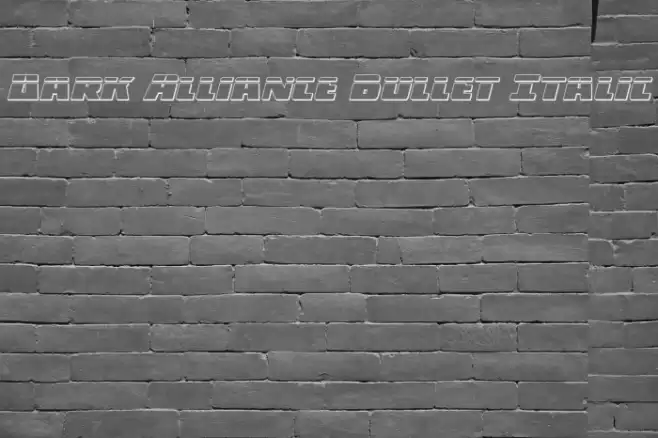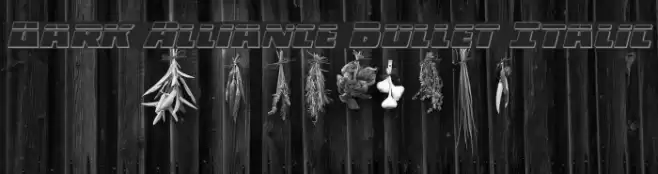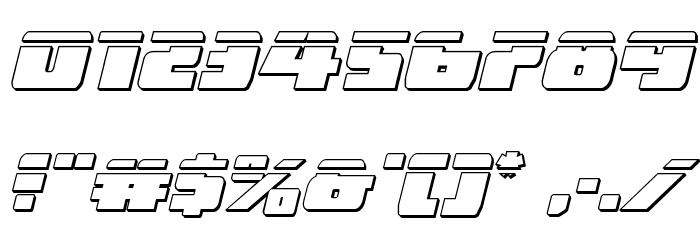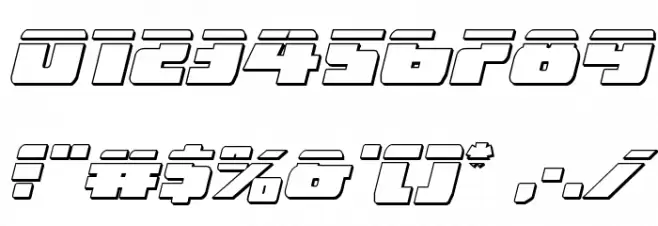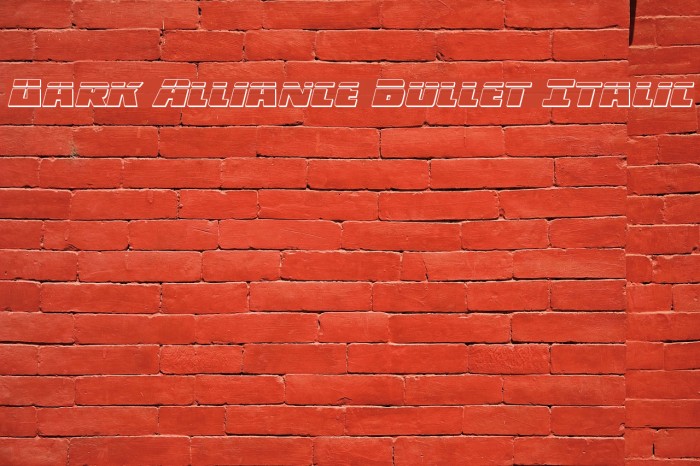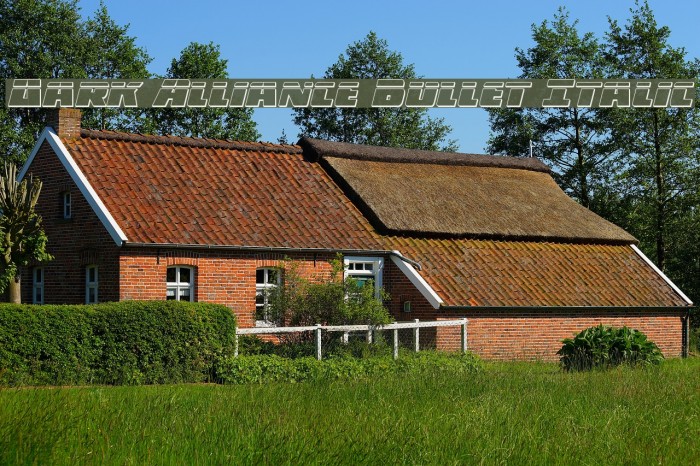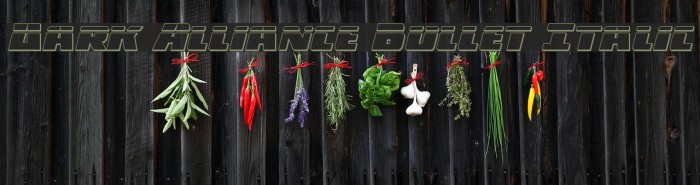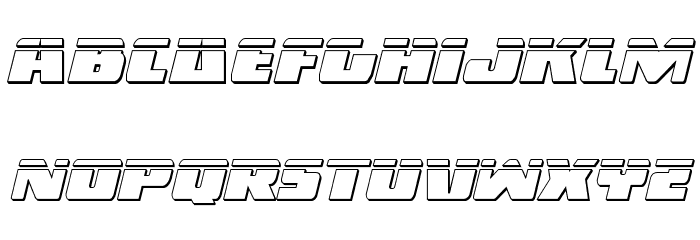
Dark Alliance Bullet Italic Font
Dark Alliance Bullet Italic Description
This font features a bold, angular design with a futuristic and dynamic appearance. The characters are outlined, giving them a hollow look that adds to their modern aesthetic. Each letter is constructed with sharp edges and a slight italic slant, enhancing the sense of movement and speed. The uppercase and lowercase letters maintain a consistent style, with the lowercase being slightly smaller but equally bold. Numerals and special characters follow the same design principles, ensuring uniformity across all glyphs. The font's unique style makes it suitable for projects that require a strong, impactful visual presence.
A bold, angular, and italic font with a futuristic outline design from Uncategorized fonts.
- Proposed Projects: Ideal for video game titles, sci-fi movie posters, tech branding, and sports team logos.
- Overall Style: Futuristic, Dynamic